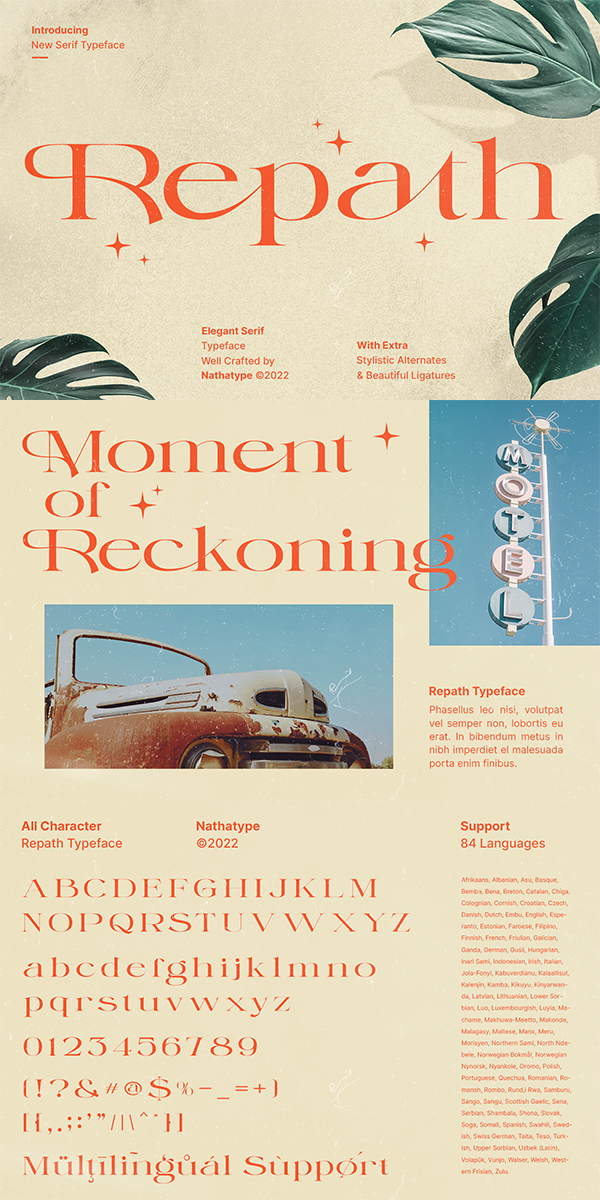
Repath Font
About Repath
Repath is an awesome serif font. This font expresses a heart desire for strong and sophistication design overall. The weight of the font brings strength to any title or header you apply to it, On the other hand, the curves of the letters and numbers convey sense of elegance. As our commitment to support your brand globally recognized, we always come with multilingual options.
-Uppercase and lowercase
It can be used for branding, logos, social media quotes, stickers, posters, vintage designs, wall art, merchandise, social media, and many more. Get more inspiration by seeing the preview.